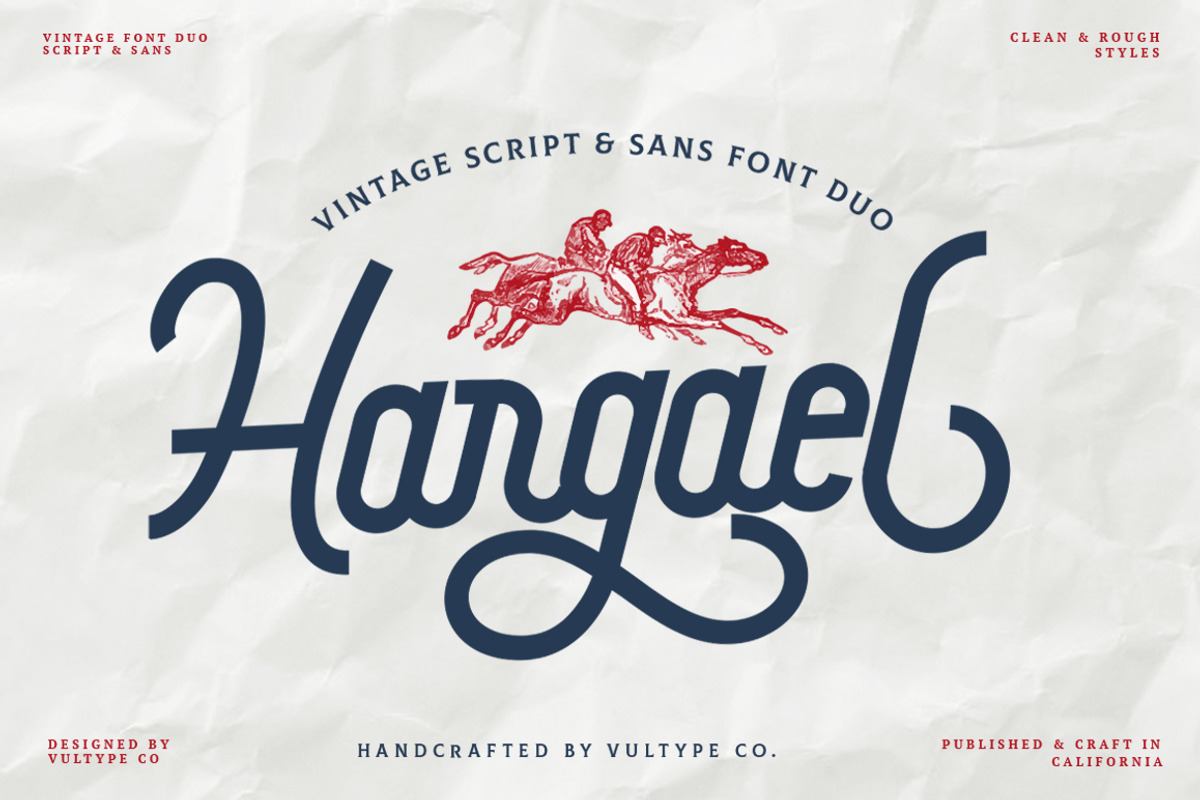
Hargael - Vintage Font Duo Free Download
This font duo features a strong vintage serif and a complementary script, making it ideal for logos, posters, apparel, packaging, and signage with an old-school flair. Hargael brings nostalgic aesthetics together with modern versatility, perfect for projects that want to stand out with style and authenticity.